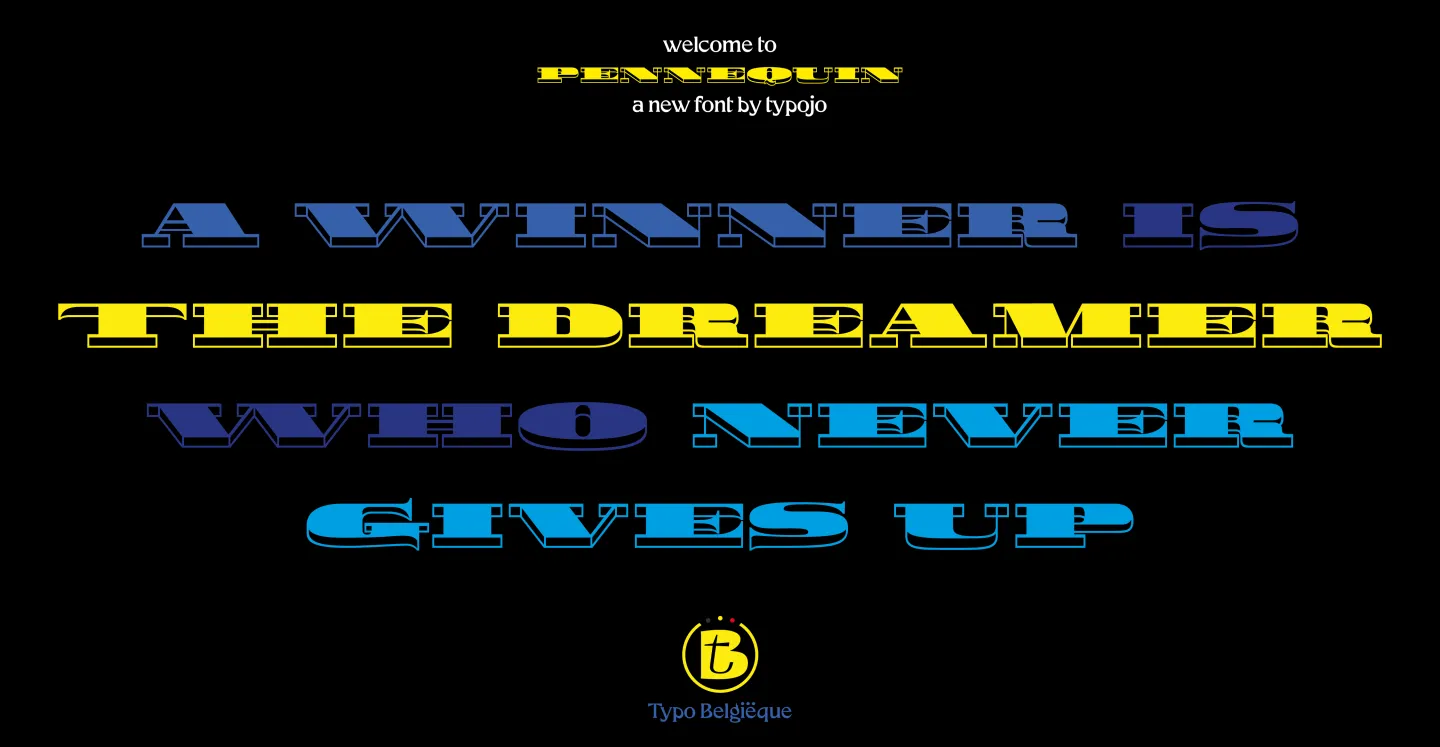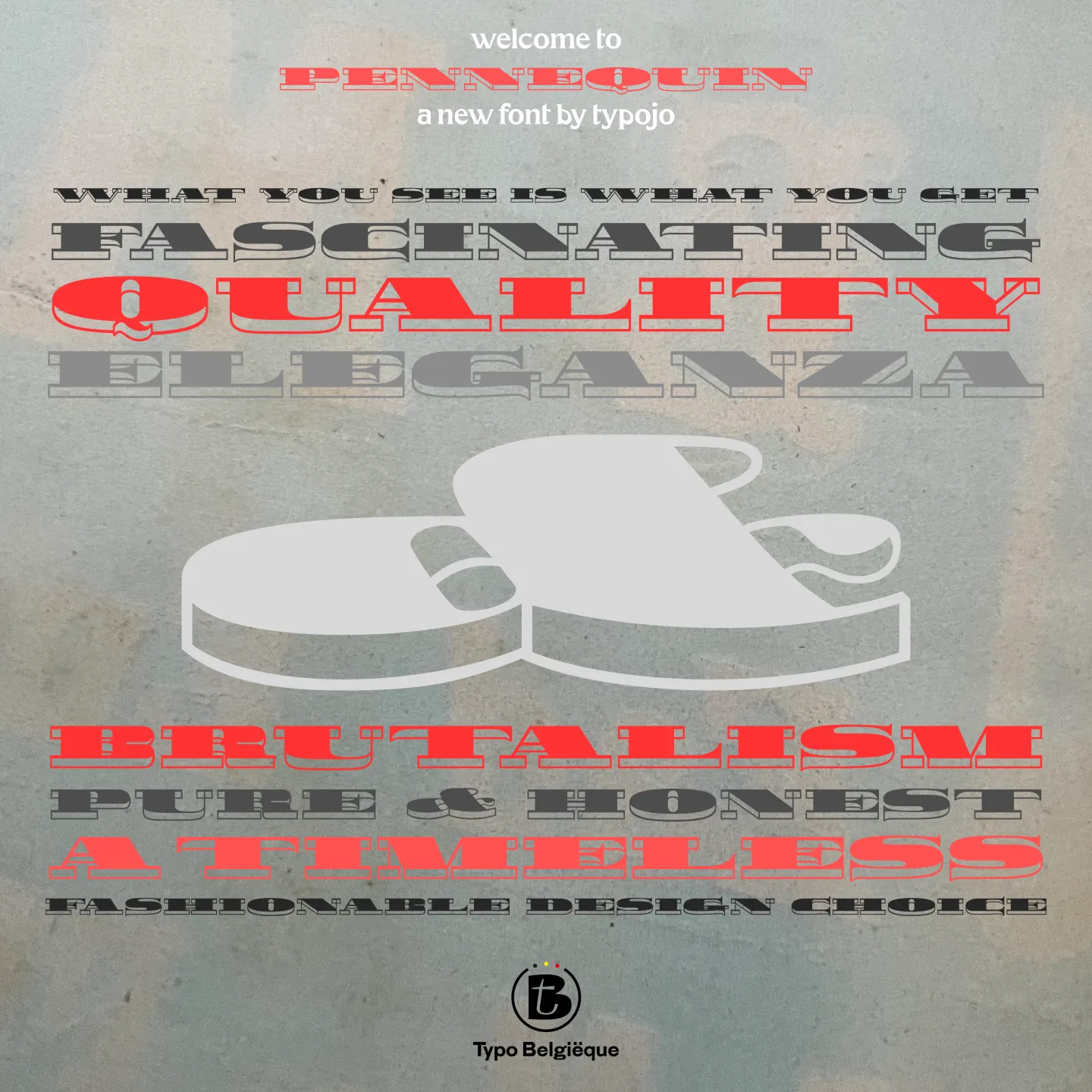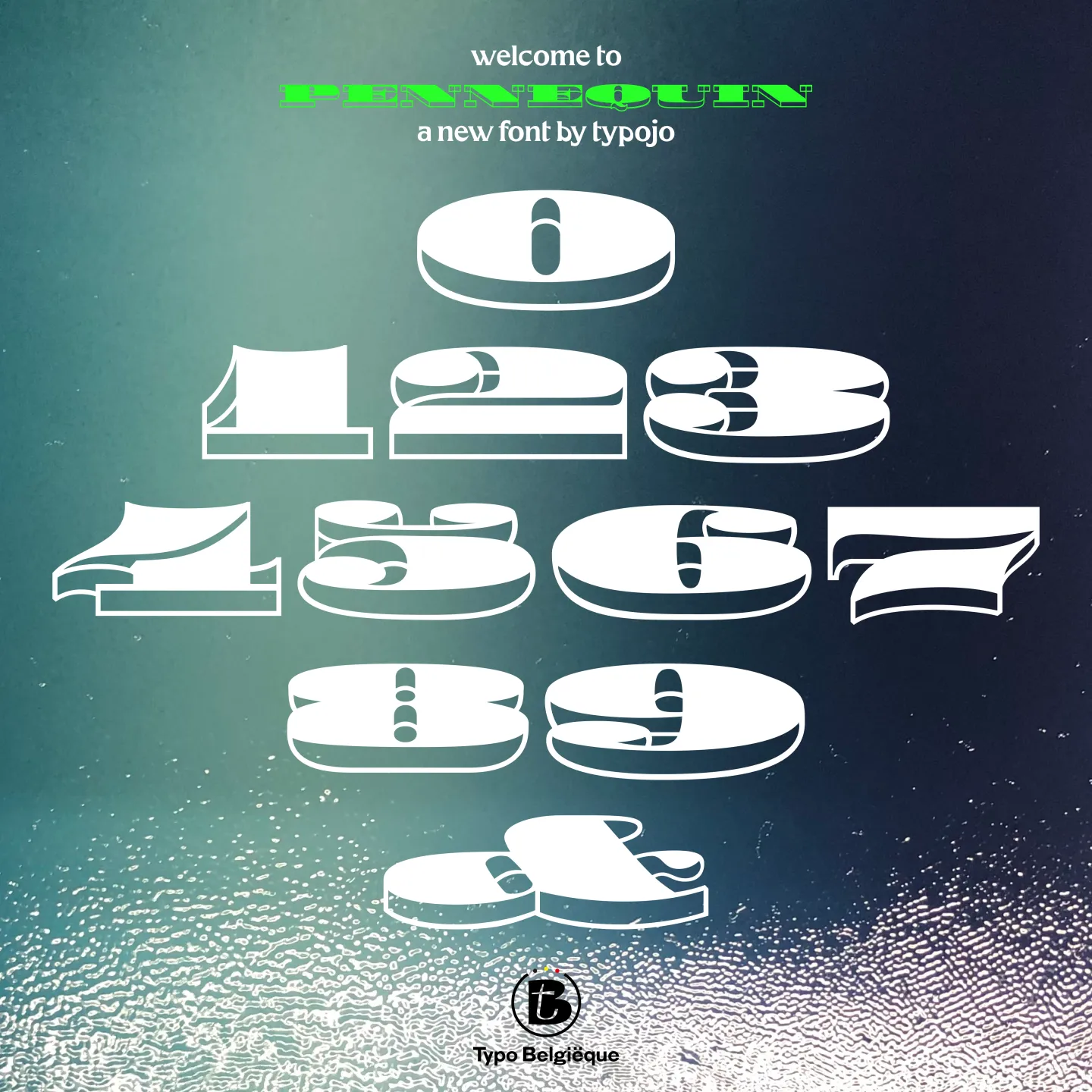
Pennequin is a contemporary interpretation of a unique three-dimensional metal printing type for headlines that originates from the type library of Charles Pennequin, one of the early nineteenth century type foundries housed in Brussels.
Pennequin is part of the ‘Typo Belgiëque’-collection, a practice oriented scientific research & type design project examining the visual design identity of Belgium in the nineteenth and twentieth century, that breathes new life into Belgium’s historical typeface families.◊